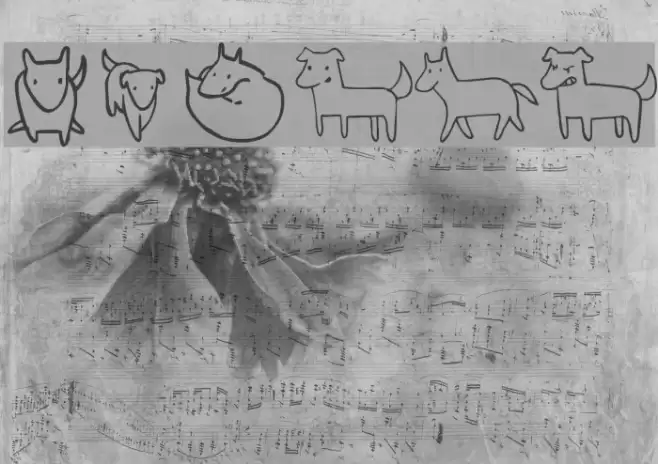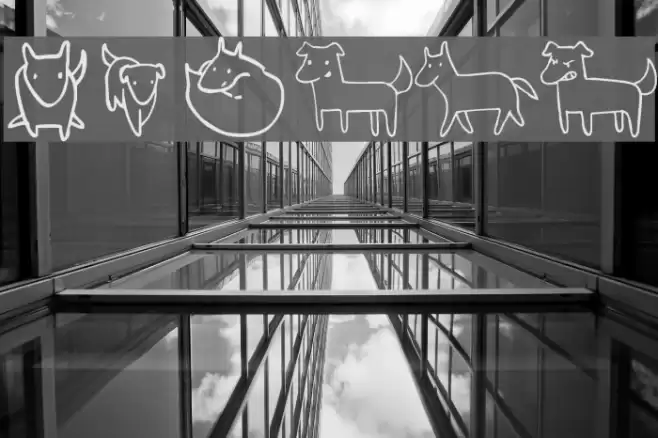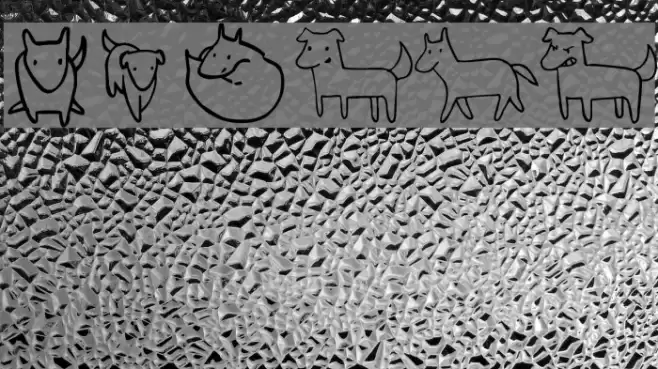
kiltro Font
kiltro Description
This playful and whimsical font features a series of hand-drawn dog illustrations, each representing a different character or symbol. The designs are quirky and cartoonish, with a consistent line weight that gives a cohesive look across all characters. The font includes a variety of dog poses and related objects, such as bones and dog houses, adding to its charm and uniqueness. The style is informal and fun, making it ideal for projects that require a lighthearted and creative touch. The characters are well-spaced, ensuring readability while maintaining the playful aesthetic.
A whimsical font with hand-drawn dog illustrations for each character from Dingbats fonts.
- Proposed Projects: Ideal for children's books, pet-related branding, playful posters, and creative invitations.
- Overall Style: Playful, Whimsical
- Use Case: Logos, Posters, Invitations